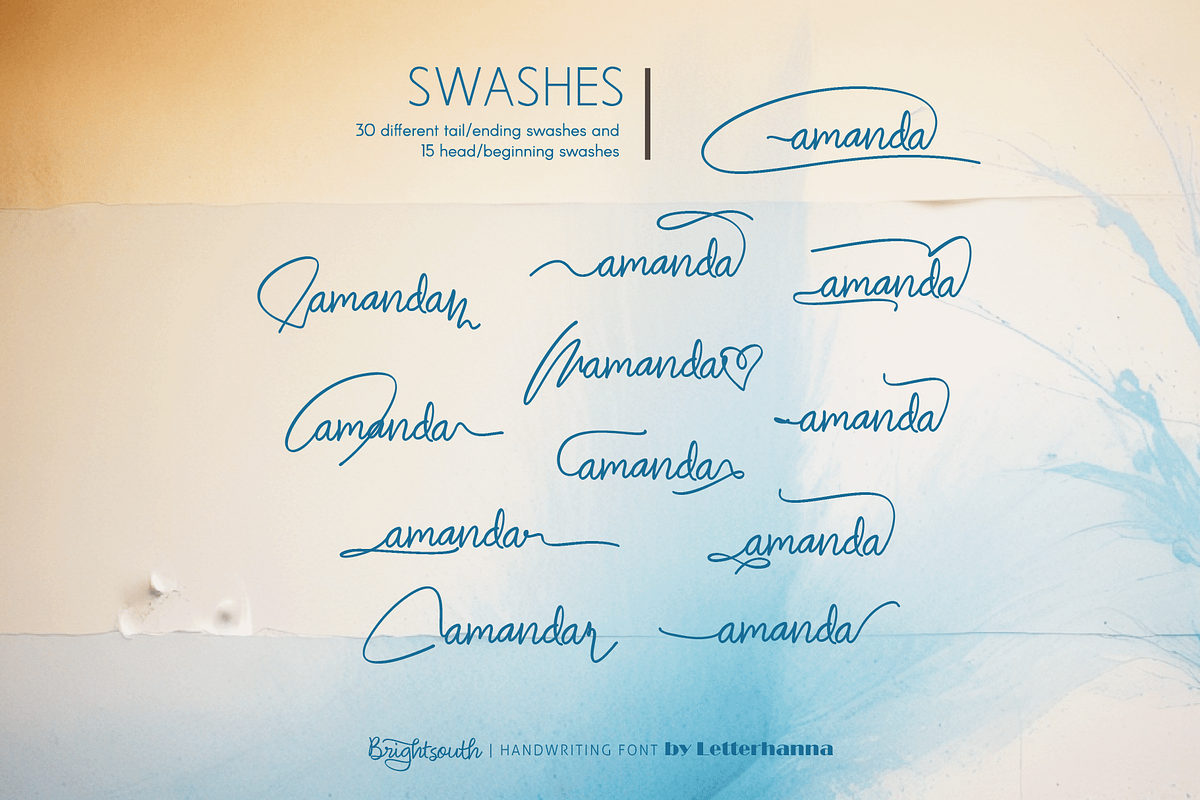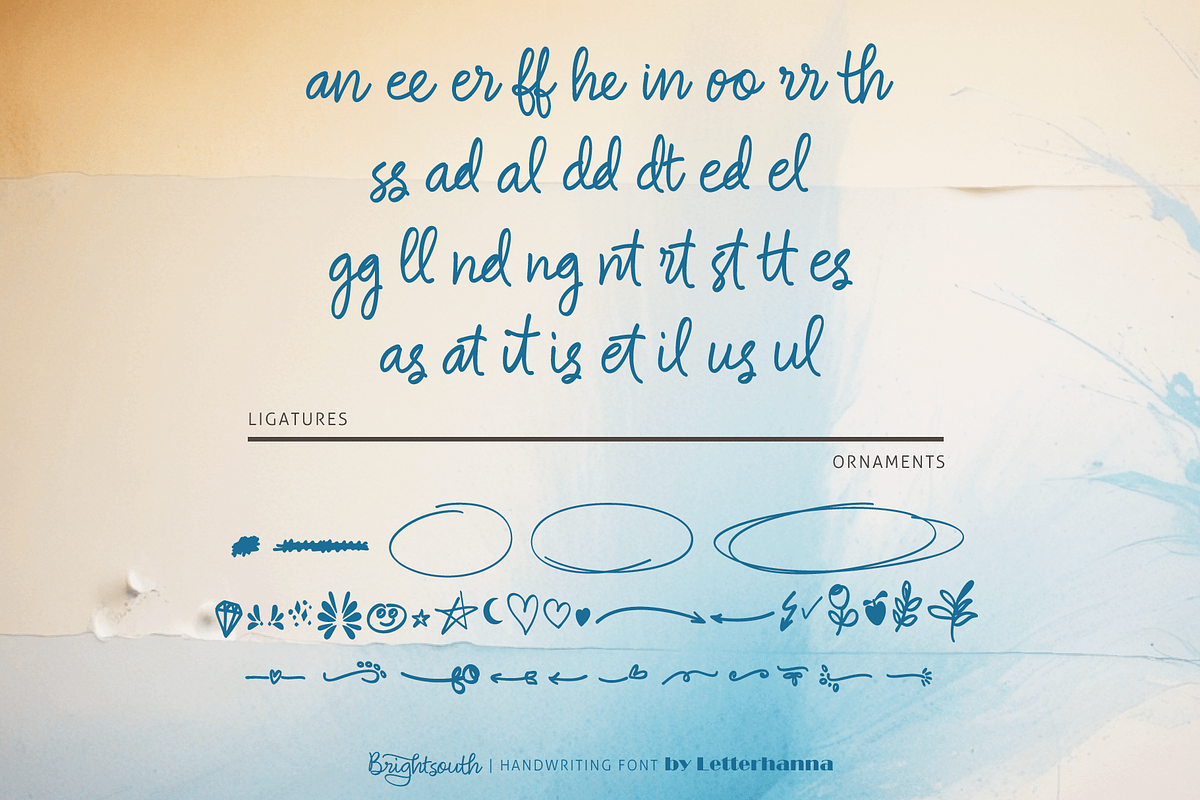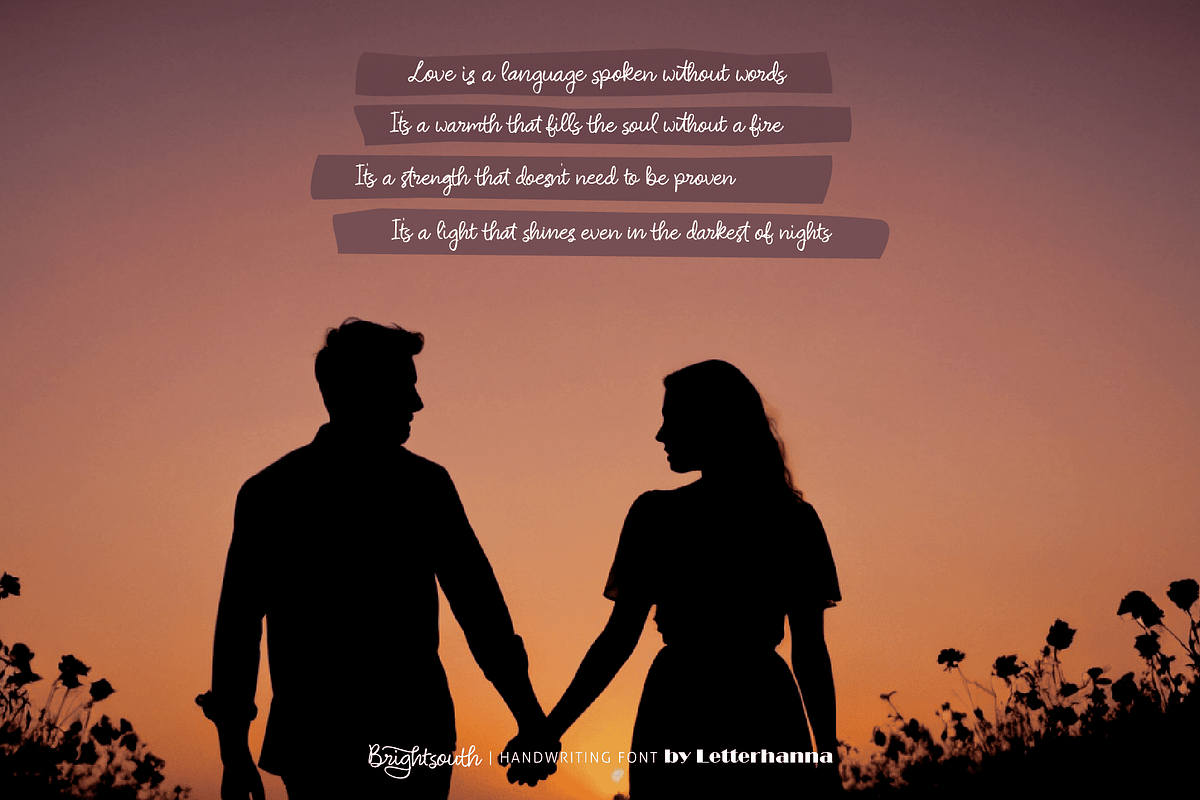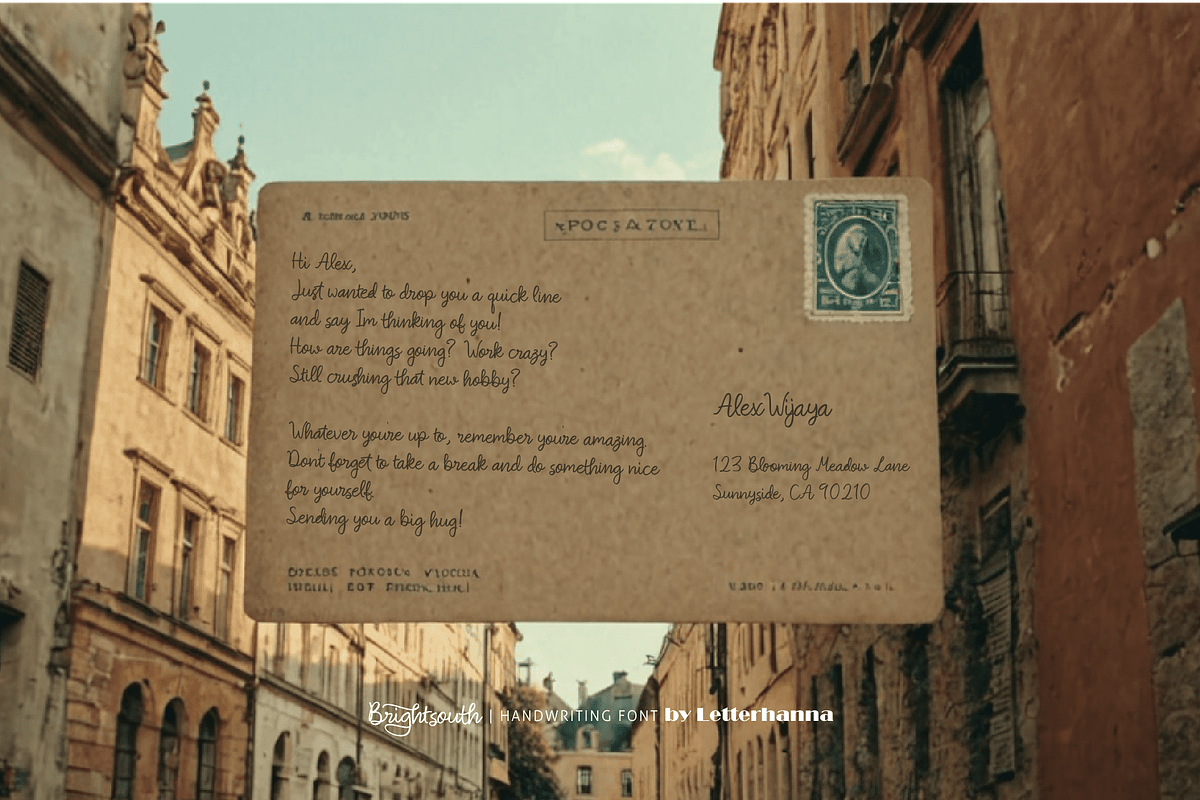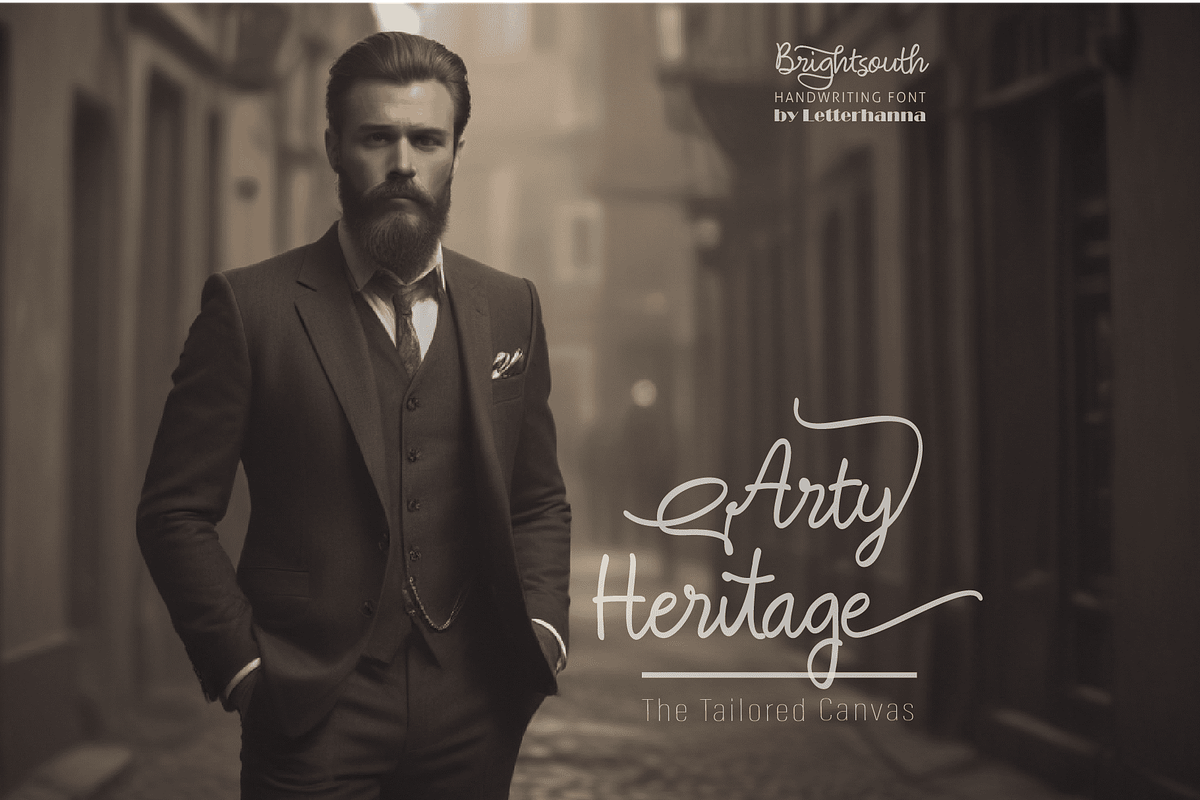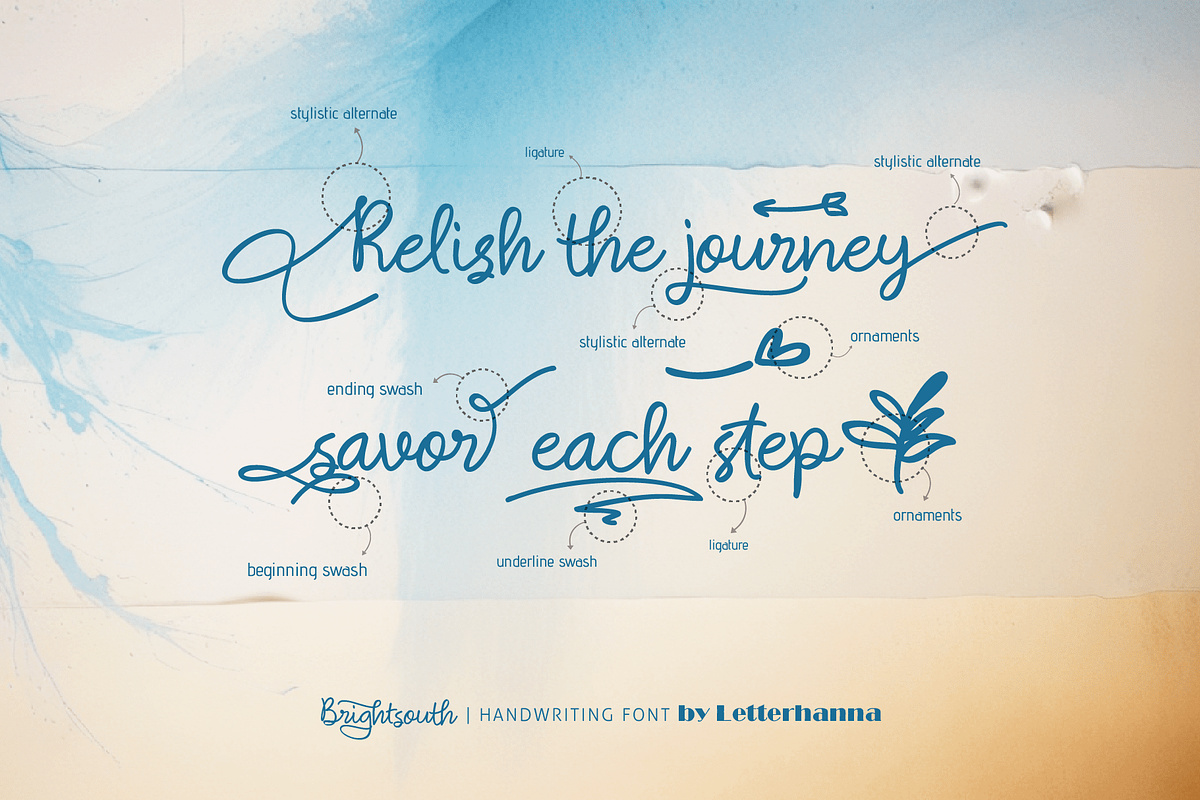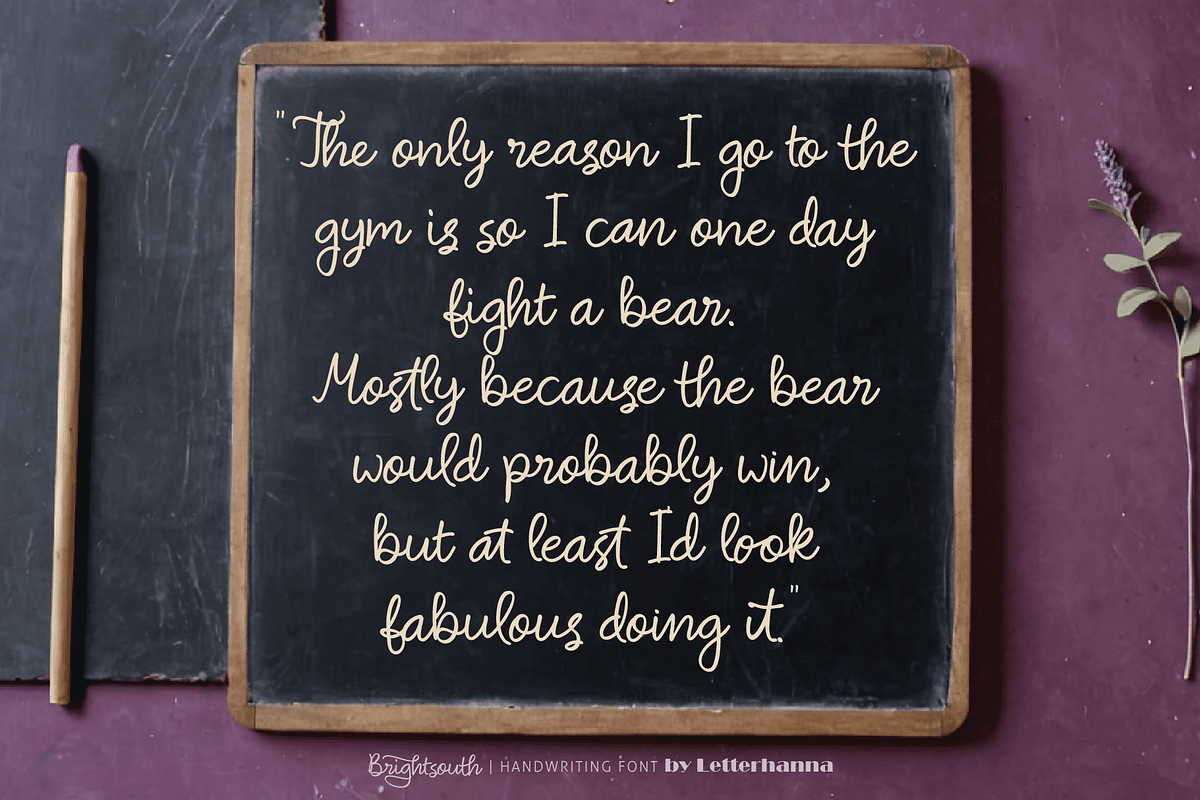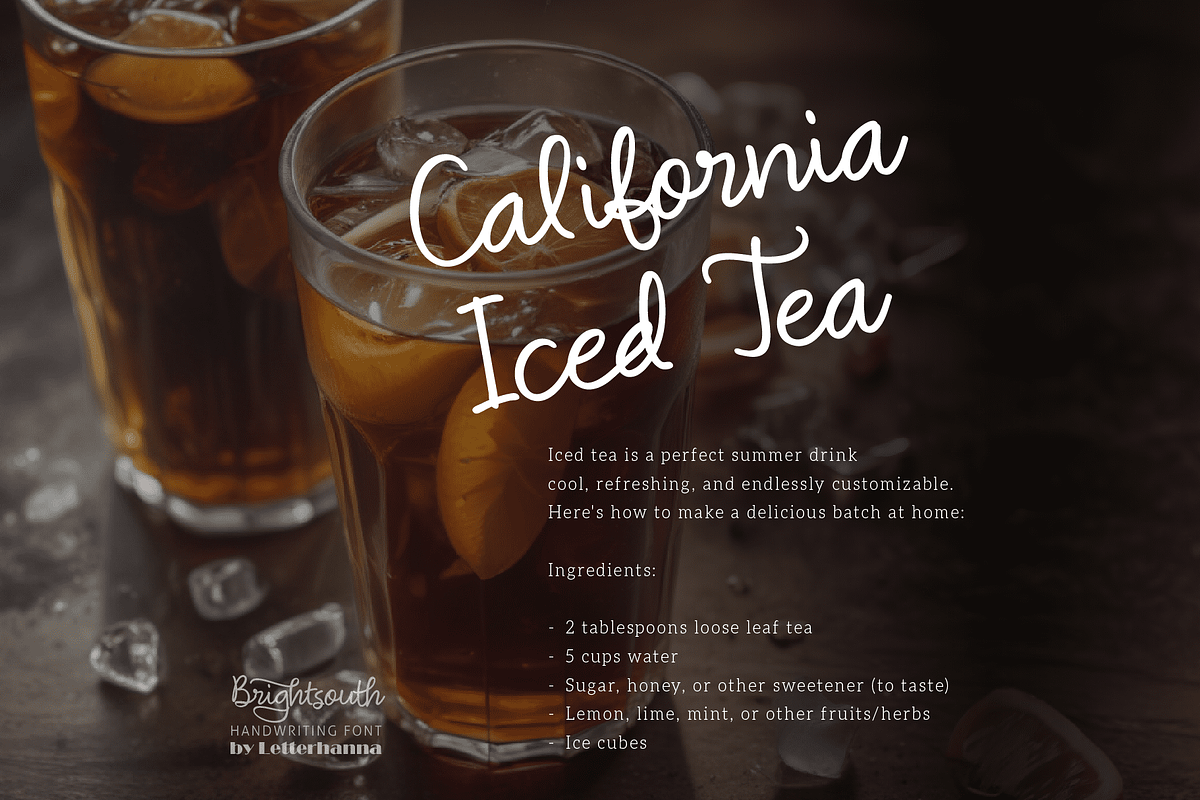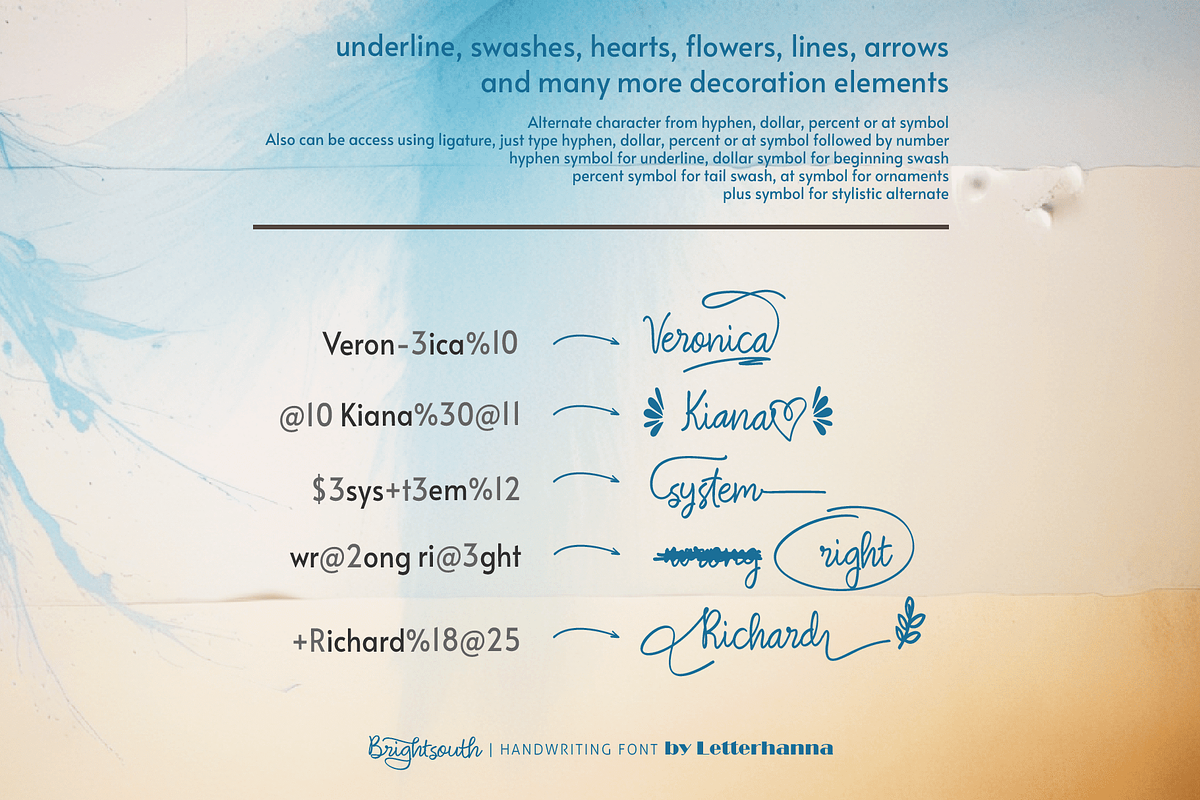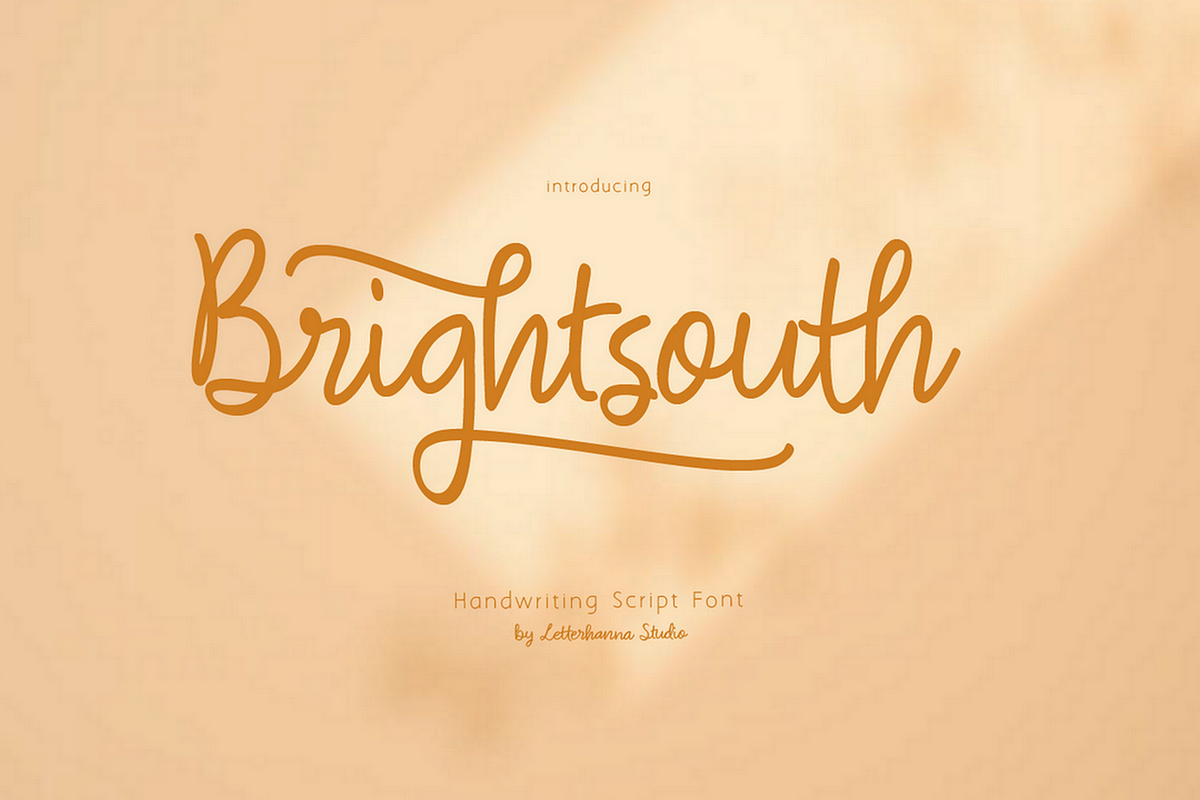
Brightsouth Font
Introducing Brightsouth, a bold and dazzling script font ready to light up your designs! Brightsouth isn't your average handwriting font. It bursts with personality, offering a treasure trove of stylistic alternates, swashes, and ligatures.
These playful extras allow you to add a unique touch to your projects, from branding and logos to invitations and social media graphics. Buckle up and get ready to create designs that truly stand out with Brightsouth's bold confidence and playful charm
Easy Access to Glyphs and Swashes
Accessing Stylistic Alternates
Stylistic alternates can be accessed by typing a plus symbol "+" in front of the original letter. For example, type "+a" to get the stylistic alternate of the letter a.
Accessing Swashes and Ornaments
Underline Swashes: Use a hyphen symbol "-" followed by a number between 1 and 30. For example, type "-3", "-22", or "-17" to get various underline swashes.
Head/Beginning Swashes: Use a dollar sign "$" followed by a number between 1 and 9. For example, type "$2" or "$8" to get different head/beginning swashes.
Tail/Ending Swashes: Use a percent sign "%" followed by a number between 1 and 30. For example, type "%3" or "%15" to get various tail/ending swashes.
Ornaments: Use an "at" symbol "@" followed by a number between 1 and 26. For example, type "@4" or "@13" to get different ornaments.
PUA Encoding for Ease of Use, which means you can access all the glyphs and swashes with ease!
Uppercase and lowercase letters
Numbers and punctuation marks
Beginning and ending swashes
Underline swashes
Stylistic alternates
Ornaments
Easy access to swashes using ligatures